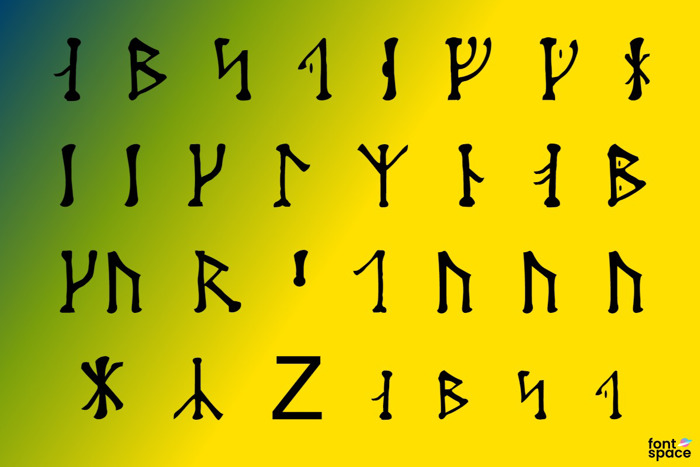
Futharken Font
v1.0 of the Futhark TTF created by Morten Bek in 1995.
This version of the futhark is the Swedish/Norwegian form which was used in approx. 700 AC.
I'm currently working on other forms of the futhark, trying to make a collection of the different styles.